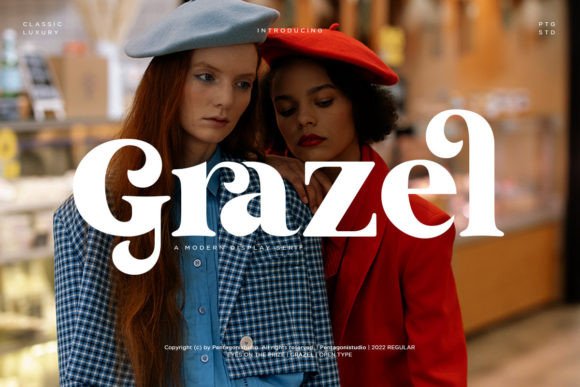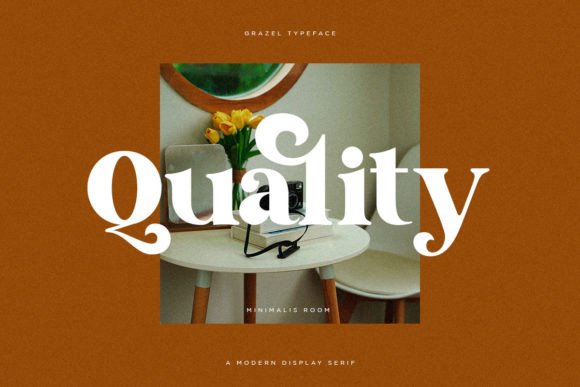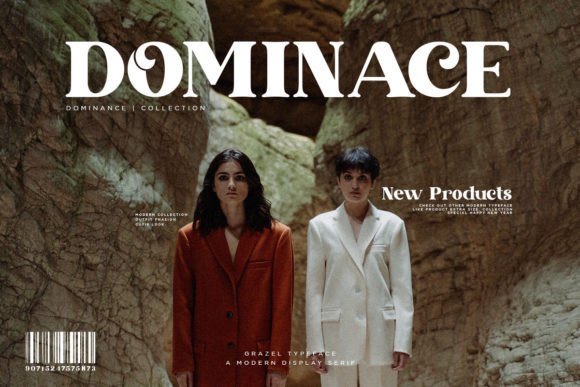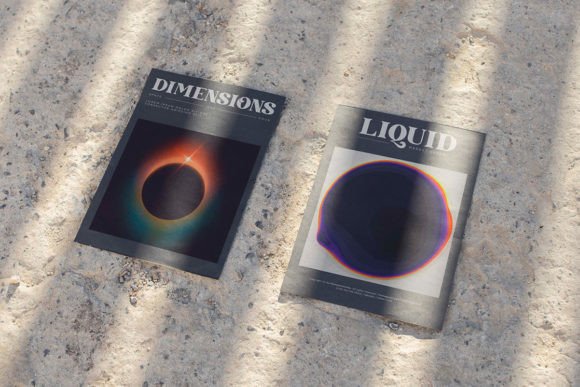
Grazel Font: Elegant Serif Typography for Modern Logo Design
About the Grazel Font
We are excited to introduce Grazel Font, a must-have typeface for any serious designer. Grazel is a modern serif font inspired by vintage typography. Stylish and bold, this easy-to-read typeface is perfect for any project! This font is PUA encoded, which means you can access all of the glyphs and swashes with ease!
Grazel’s bold yet refined aesthetic makes it ideal for headlines, logos, and short-form text in branding materials and posters. Its vintage inspiration lends a touch of classic sophistication, suitable for projects requiring a balance of modernity and heritage. However, its strong serifs and relatively high x-height make it less suitable for extended body text or UI elements where readability over long passages is crucial.
Grazel projects a confident, sophisticated personality. It is best suited for brands seeking to convey a sense of established quality and timeless style, but with a modern twist.